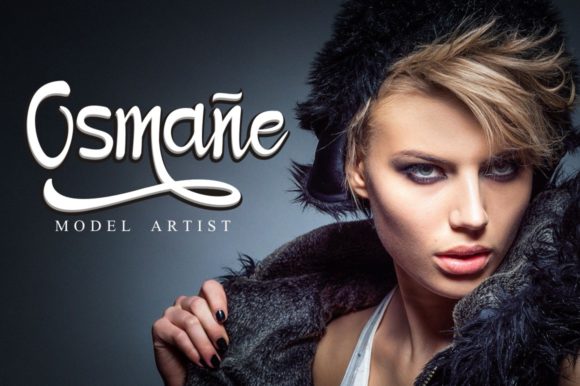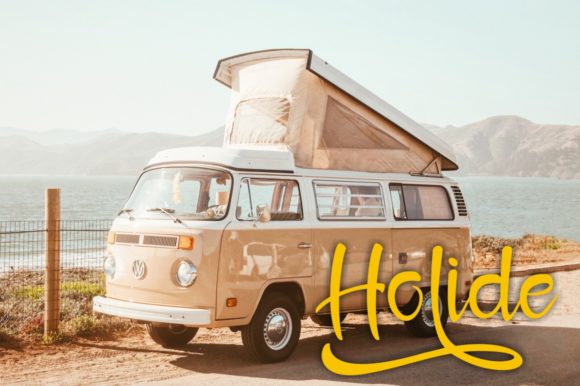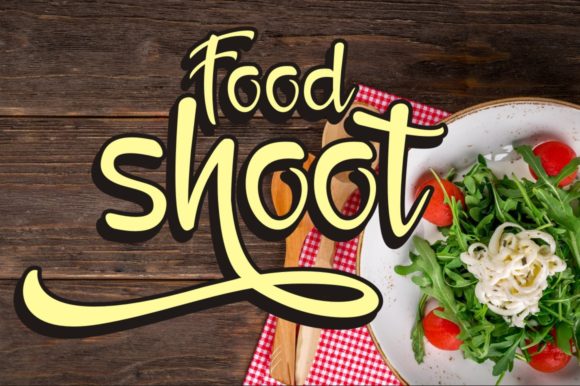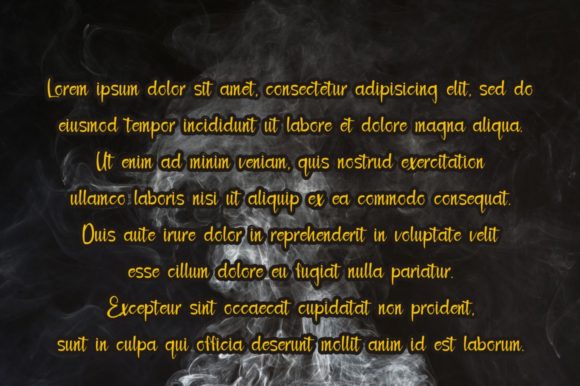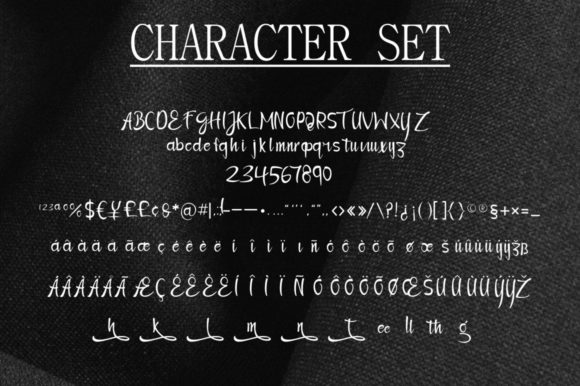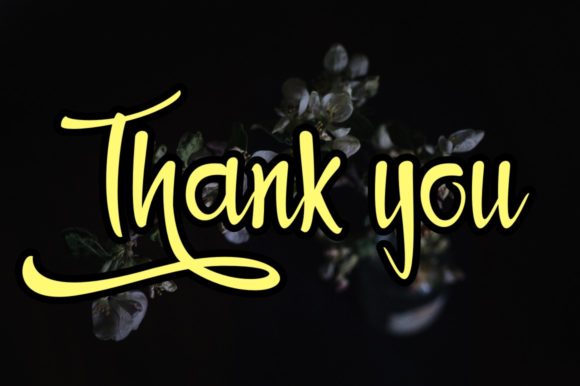
Introduction to Osmane Font
Have you ever stared at a blank page, waiting for that elusive spark of inspiration to strike? For designers, this moment can be a recurring challenge, but what if the solution lies in the perfect font? Imagine transforming your creative project with a single, high-quality font that elevates your design to the next level.
Enter the Osmane Font, a modern take on the classic handwritten style. With its stunning swashes and elegant flair, this design resource is sure to captivate your audience and leave a lasting impression. Whether you’re working on a brochure, a logo, or a social media campaign, the Osmane Font is the perfect addition to your toolkit.
Key Features of Osmane Font
- High-quality, elegant design ideal for creative projects, making it a valuable design resource.
- Osmane Font features a transparent background, making it easy to layer over other design elements.
- The font size is scalable, allowing designers to adjust it to suit the specific needs of their creative project.
- Designed with a high resolution, making it suitable for use in print and digital applications.
- Unique characteristics include its elegant, modern aesthetic and versatile font styles, making it a popular choice among designers.
Honest Review: Osmane Font
As a designer, I’m always on the lookout for high-quality design resources to elevate my creative projects. The Osmane Font has been a recent addition to my toolkit, and I’m excited to share my honest review.
- ✨ The Osmane Font offers a sleek and modern design aesthetic that’s perfect for contemporary projects.
- ✨ The transparent background feature allows for seamless integration with other design elements.
- ⚠️ The font doesn’t come with as many language support options as I’d like, which might be a concern for projects that require multilingual support.
Overall, I’m impressed with the Osmane Font’s design quality and versatility. While it may have some limitations, it’s a solid choice for designers looking for a high-quality, free font to elevate their creative projects.
Tips for Getting the Most Out of Osmane Font
For optimal results, use the Osmane Font in conjunction with other high-quality design elements to create a cohesive and visually appealing design. Experiment with different font sizes, colors, and styles to find the perfect balance for your creative project. The transparent background feature of the Osmane Font allows for endless possibilities in design.
Common Use Cases for Osmane Font
The Osmane Font is ideal for use in a variety of creative projects, including logos, branding materials, and marketing materials. Its high-quality design and transparent background feature make it a popular choice among designers and creatives. You can also use the Osmane Font
Does the Osmane Font have a transparent background?
Yes, the Osmane Font features a transparent background, making it easy to use in design projects that require a clear and seamless background. This is particularly useful for designers working on projects that involve layered elements or complex compositions.